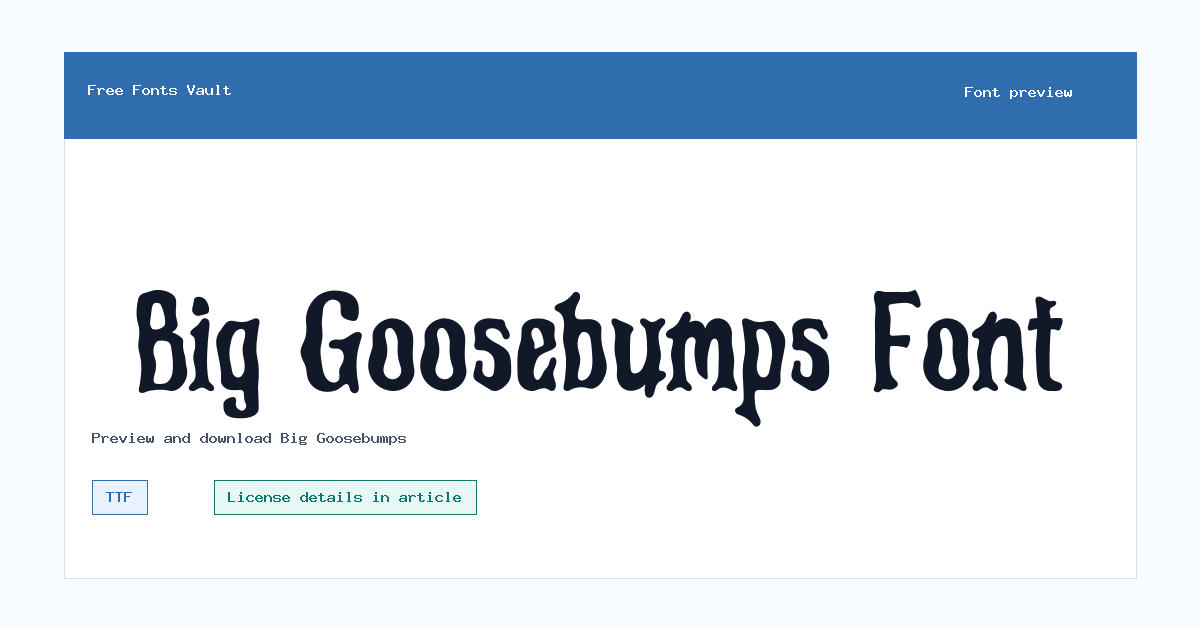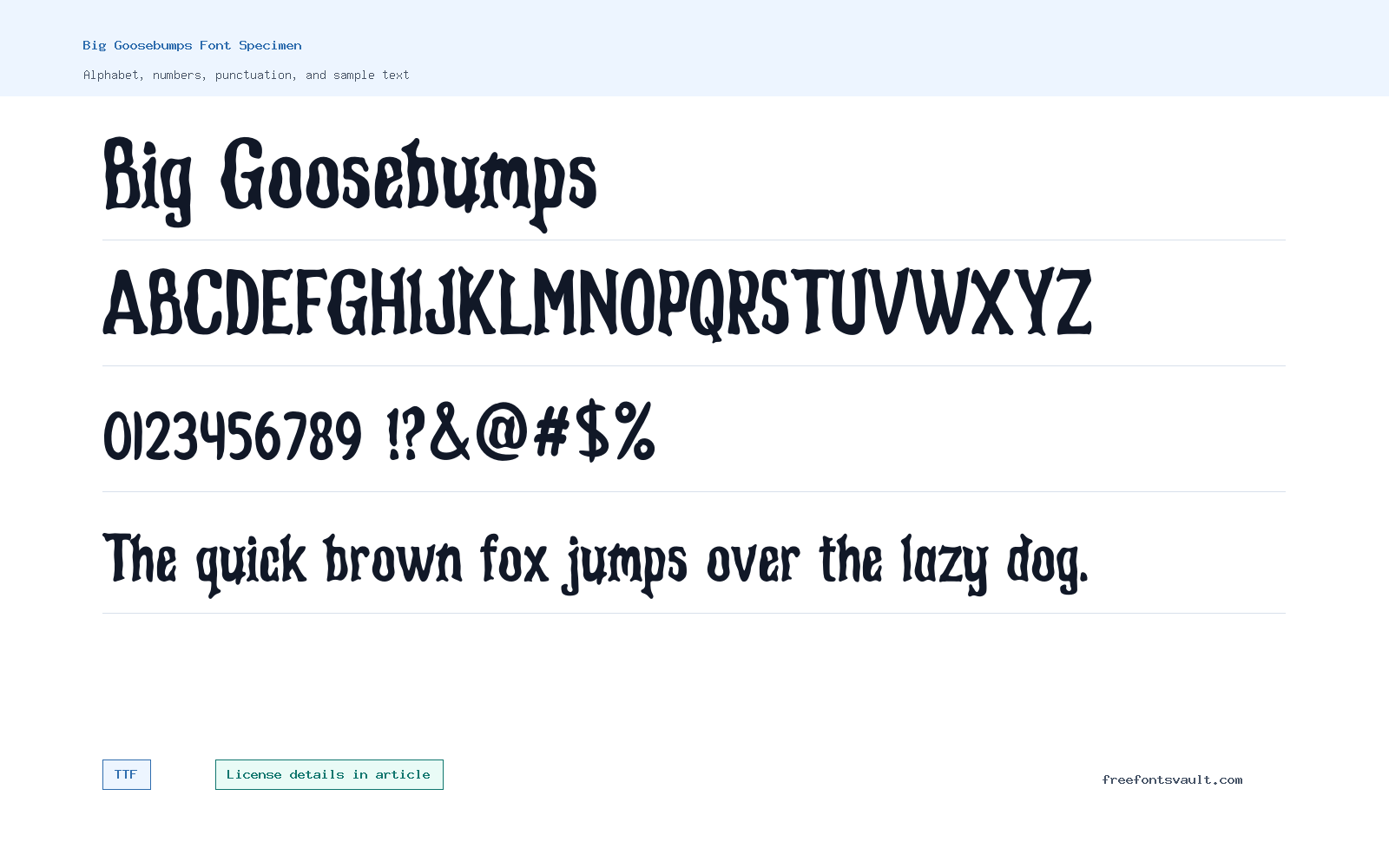
Big Goosebumps
Big Goosebumps font.
Big Goosebumps is a display-style font family with a single regular TTF file, made for visitors who want to test bold title text before downloading.
About Big Goosebumps
Big Goosebumps works best as a headline or short-text font rather than a long reading face. The name suggests a spooky or playful mood, so it is worth trying with Halloween titles, poster words, game-style labels, or dramatic preview text. Because only the regular style is listed, the safest way to judge it is to type the exact words you plan to use and check the spacing, letter shapes, and overall tone at different sizes.
Use it where personality matters more than quiet readability. Short names, large headings, thumbnails, stickers, party graphics, and display banners are better fits than body paragraphs or dense menu text. If you are designing a full layout, pair Big Goosebumps with a simple sans serif for supporting copy so the display text can stand out without making the page hard to read.
For a stronger result, keep the composition simple. Big Goosebumps can carry a title or large word on its own, but it will lose clarity if it competes with too many textures, shadows, or busy background images. Let the font create the mood first, then add supporting design elements carefully.
If you plan to use it for a party flyer, Halloween graphic, classroom design, or thumbnail, preview the longest phrase in the layout. Display fonts often look best with one to four words; longer lines may need more spacing, a larger canvas, or a simpler companion font.
- Display-first personality for spooky, playful, or dramatic short text
- Useful for large titles, posters, stickers, and thumbnails
- Best paired with a clean supporting font for body copy
- Halloween-style headings, spooky titles, and playful display text
- Posters, thumbnails, stickers, banners, and short promotional graphics
Is Big Goosebumps good for body text?
It is better treated as a display font for short text. Use it for headings or graphic titles, and choose a simpler font for paragraphs.